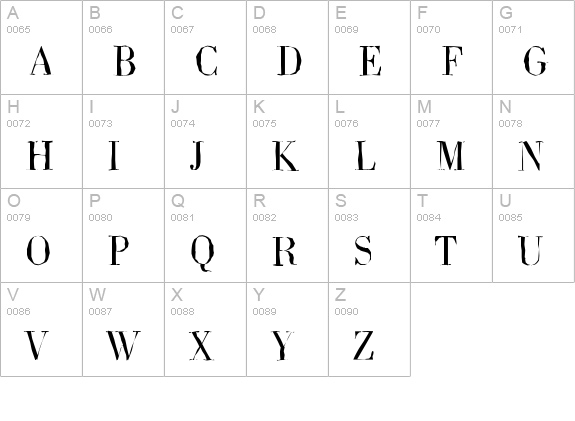
BodoniAntique-Light-Regular is a refined, elegant variant in the BodoniAntique typeface family \xE2\x80\x94 well suited to elegant body text, refined sub-headings, and luxury branding.
BodoniAntique-Light-Regular is a graceful and elegant font that exudes a timeless charm. With its delicate serifs and sophisticated curves, this typeface is perfect for adding a touch of class to any project. Whether used for headings, invitations, or branding, BodoniAntique-Light-Regular is sure to make a statement. Best of all, this stunning font is completely free to download at FontsMarket.com. So go ahead and elevate your designs with the beauty and refinement of BodoniAntique-Light-Regular.